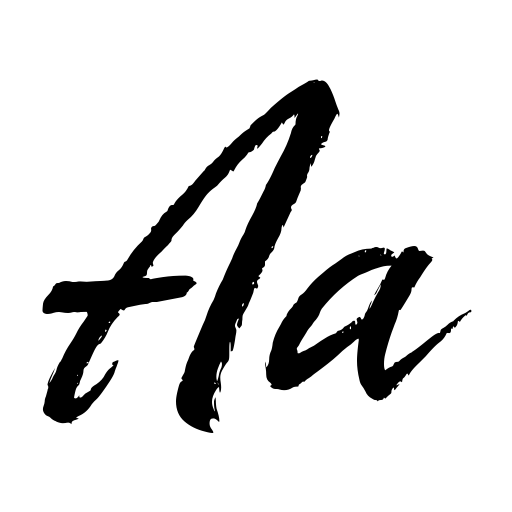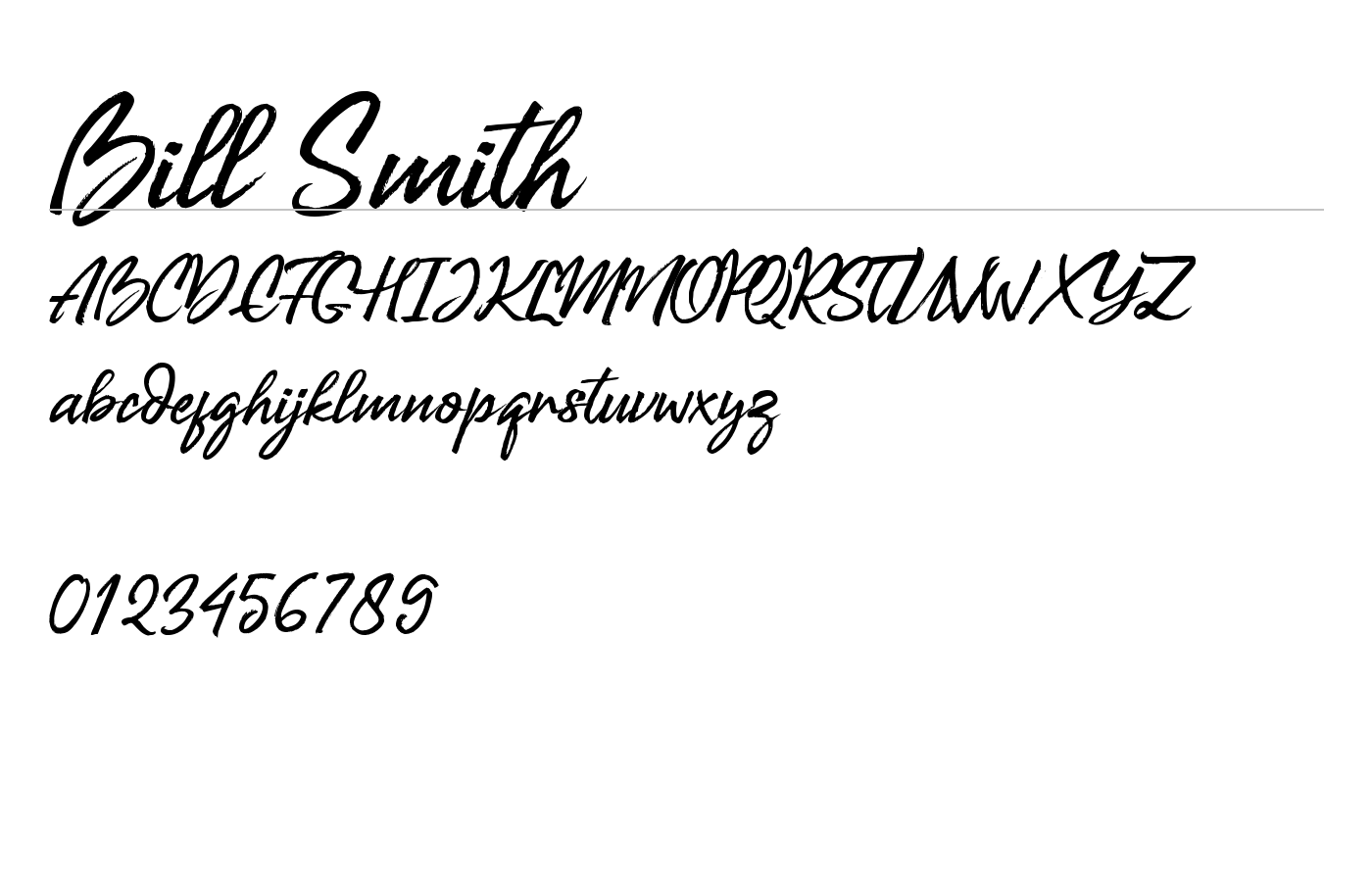
Bill Smith Font is a lively and elegant script typeface that mimics natural handwriting with smooth, flowing strokes and moderate contrast. Its casual yet refined style makes it perfect for branding, invitations, and creative projects that want to convey a personal and stylish touch. With its readable letterforms and dynamic character, it works well in both headlines and decorative text, adding warmth and sophistication.
Bill Smith Font
About Bill Smith Font
| Font family | Bill Smith Font |
| Designer | Subectype |